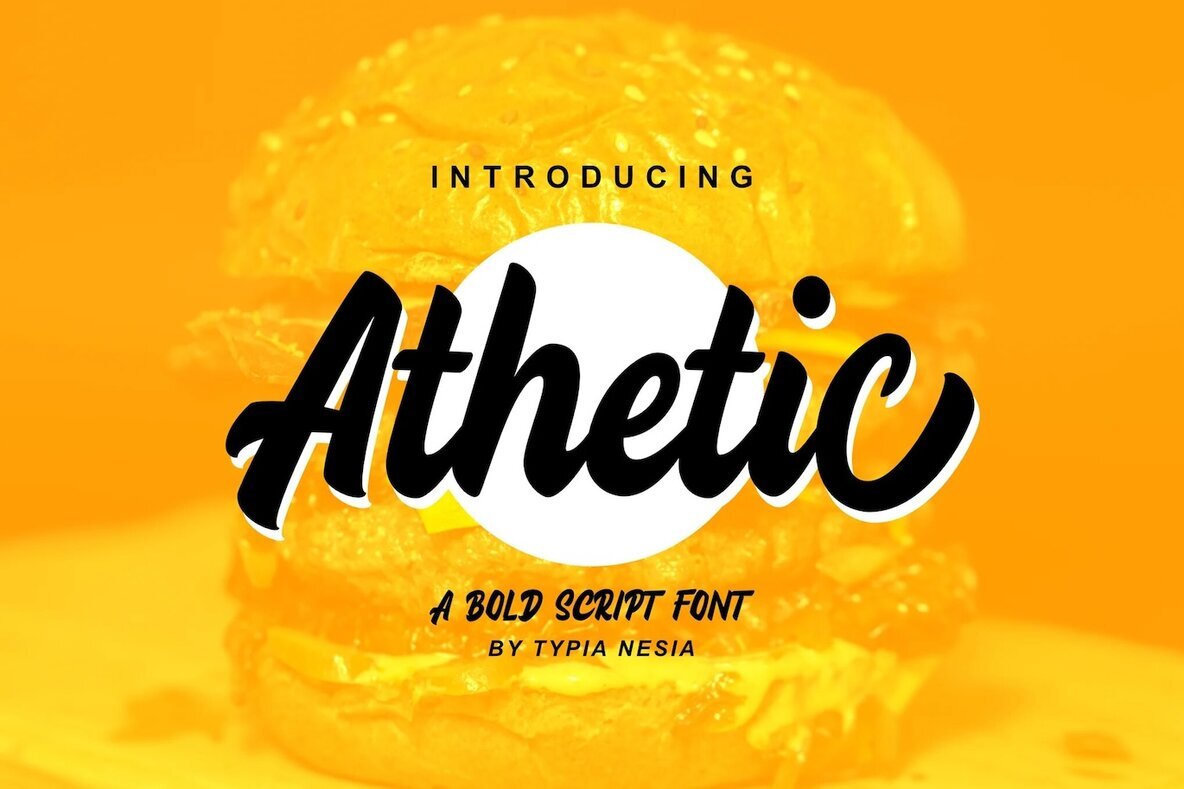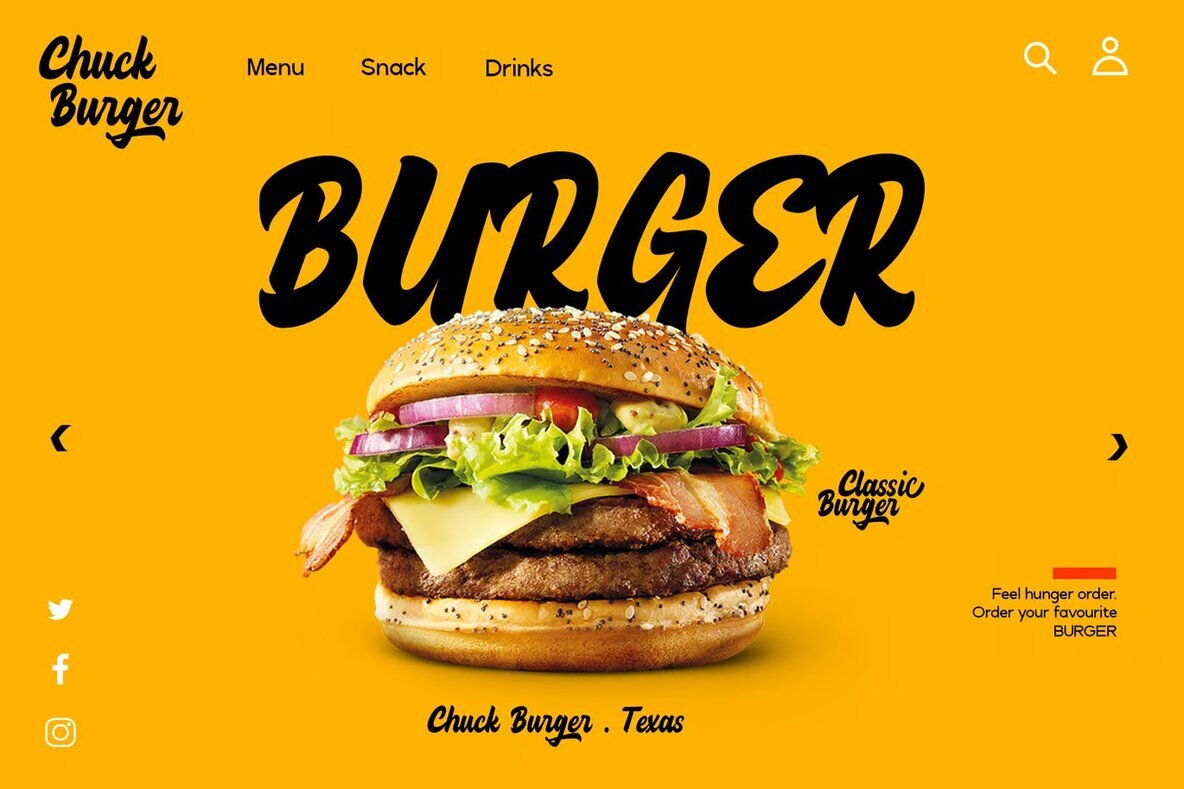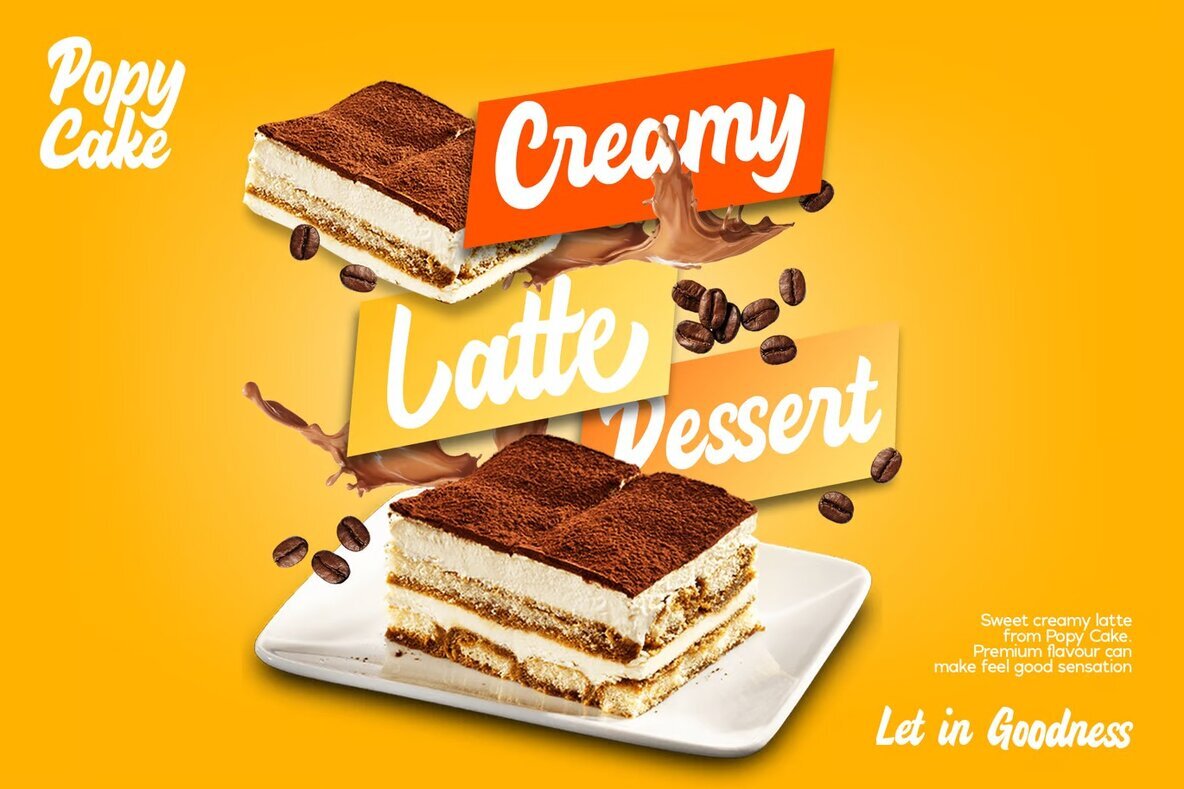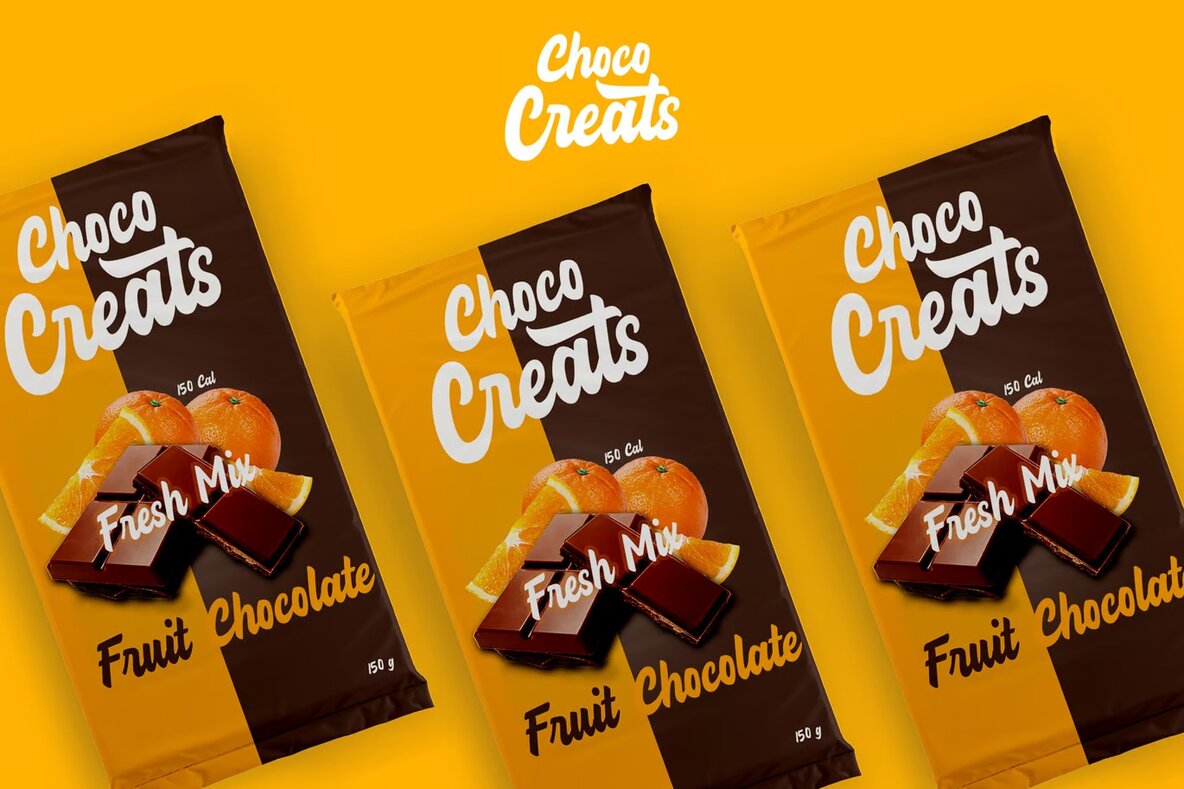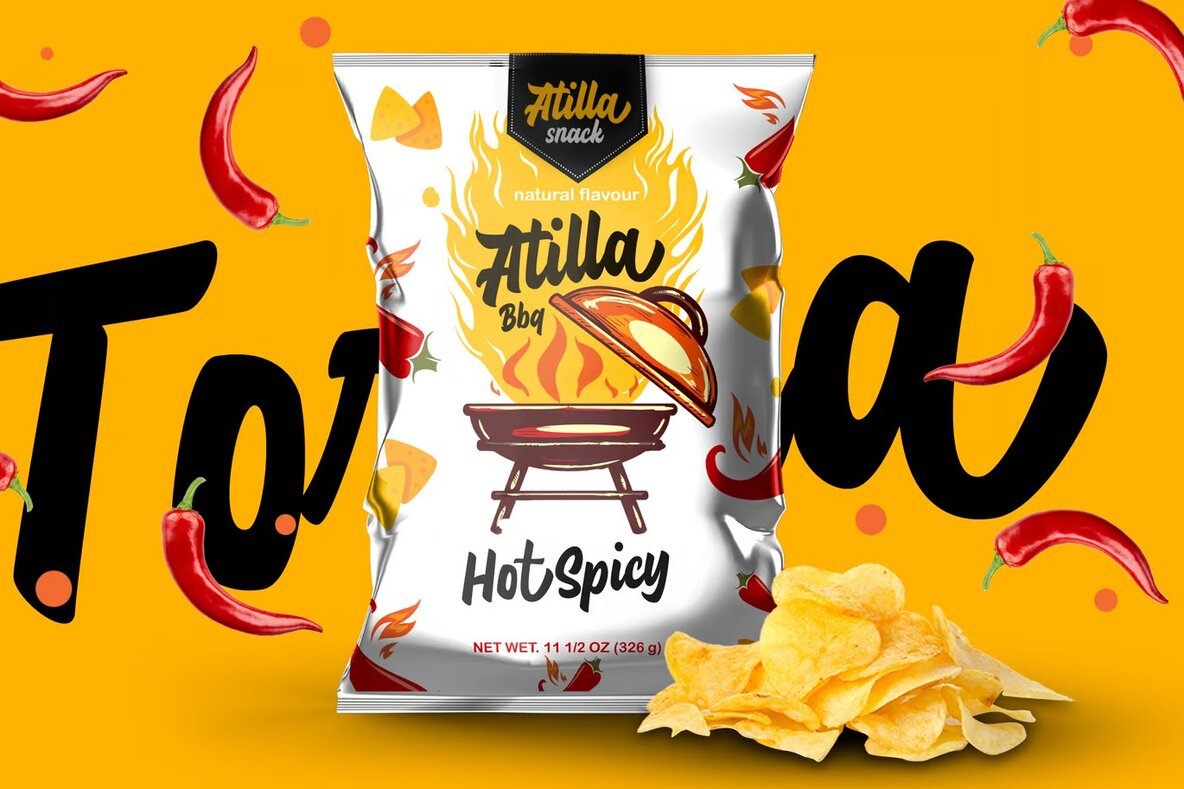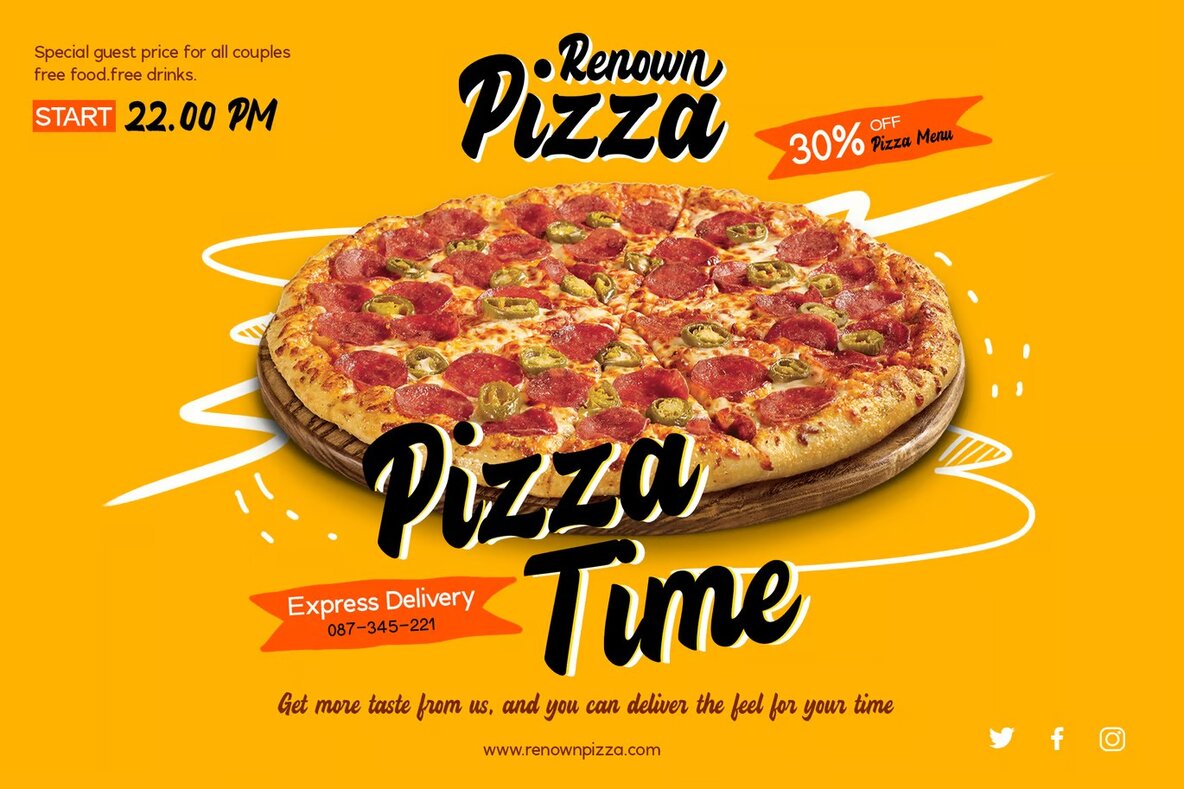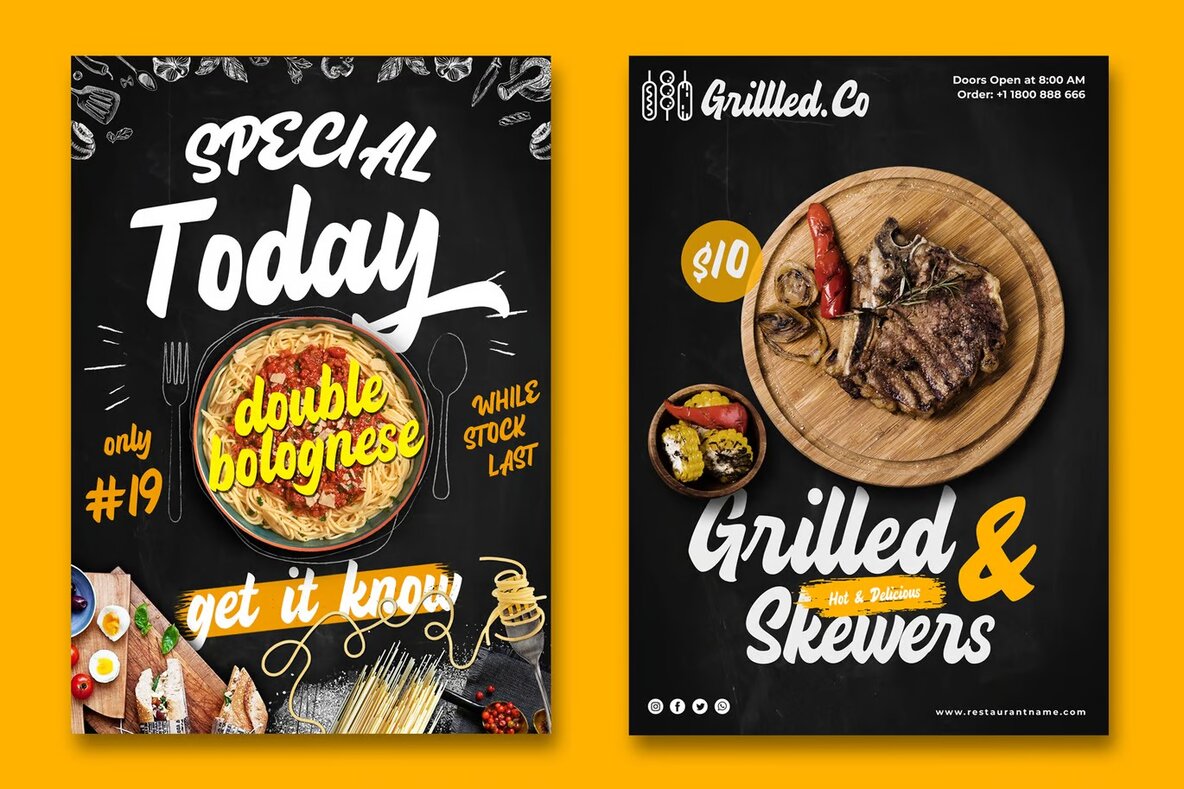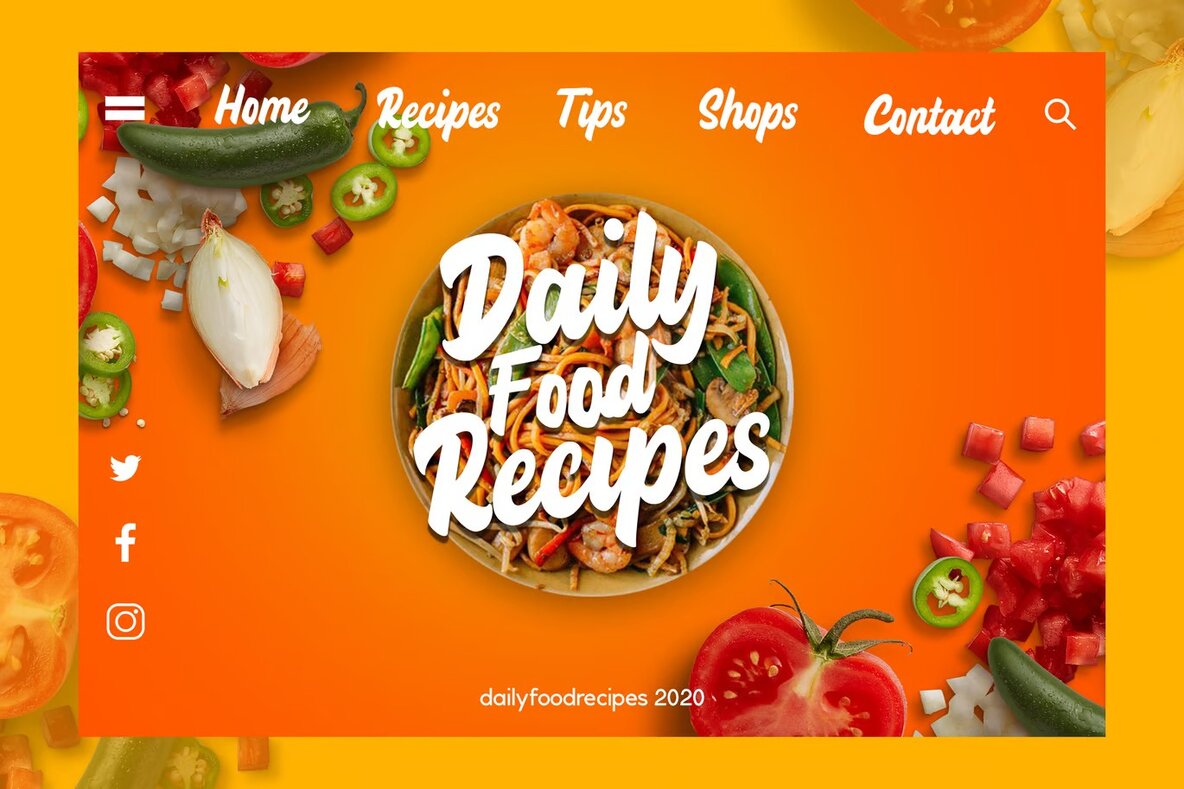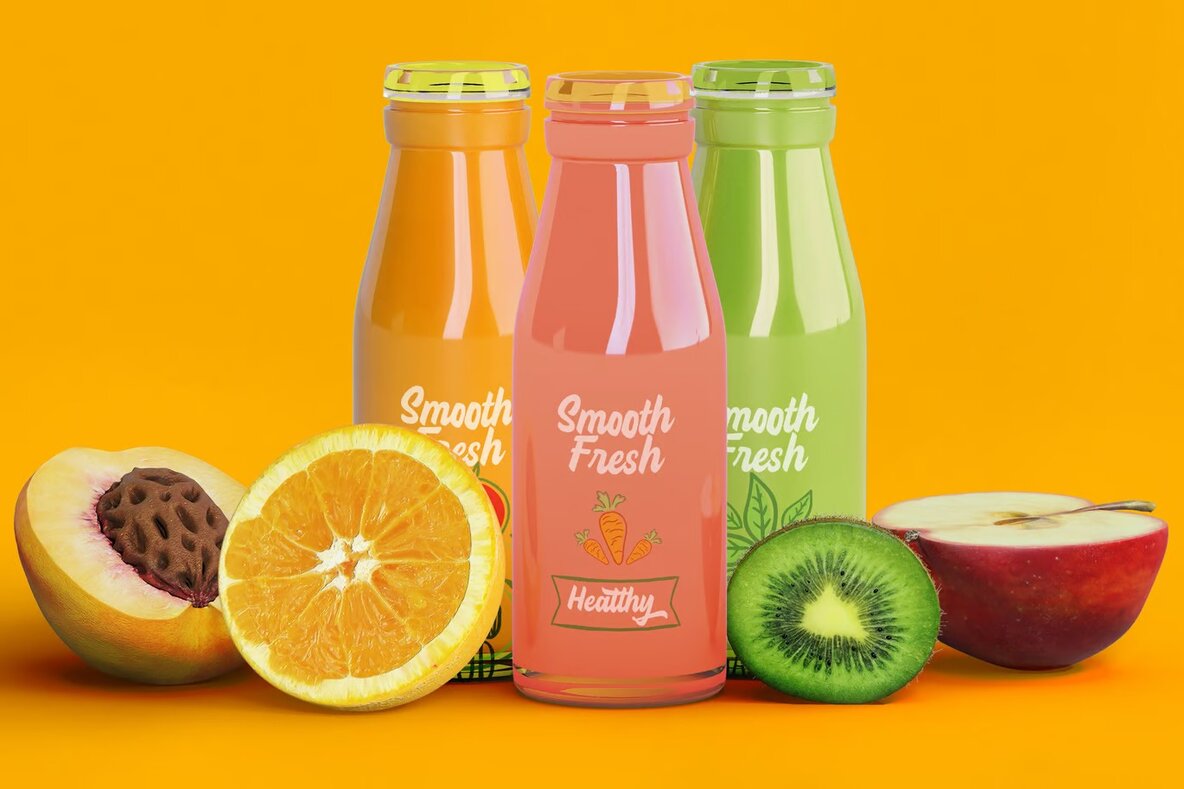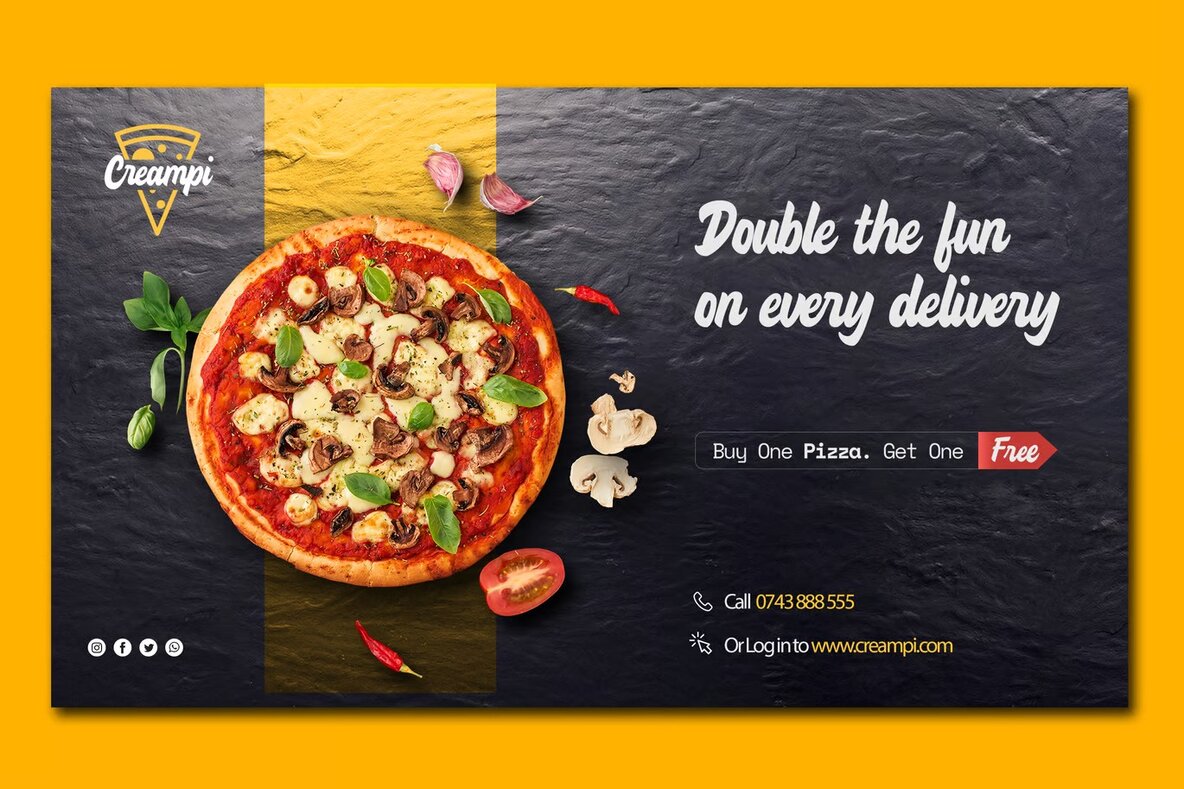
Athetic Font
Athetic Regular
Athetic is a clean and bold script display font, ideal for projects that require a touch of calligraphy or lettering. With a versatile design, Athetic is perfect for logos, branding, advertising, poster quotes, book titles, editorial content, websites, cards, and a variety of hand-lettered products such as custom mugs, pillows, and t-shirts.
This font comes with a full suite of both uppercase and lowercase characters, punctuation, numerals, and various glyphs. OpenType features include standard ligatures, stylistic alternates, swashes, and stylistic sets, offering extensive possibilities for customization. Additionally, Athetic supports a range of multilingual characters, making it adaptable for international use.
Whether you're working on a creative project or need something striking for professional purposes, Athetic delivers stylish and bold results.